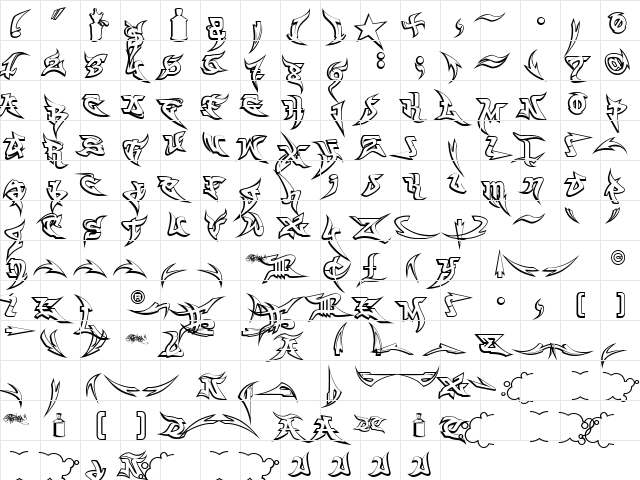
WildStyle-Outline Regular
Design Context for WildStyle-Outline Typeface
WildStyle-Outline is built around its visual character rather than neutral utility — its distinctive forms are designed to make an impression at display sizes.
Font Pairing: Pair with a clean neutral sans-serif for body copy to let WildStyle-Outline's character lead without overwhelming the composition.
Pro Tip: Treat WildStyle-Outline as the centrepiece of your typographic hierarchy. One strong heading set in a decorative face can carry an entire layout.